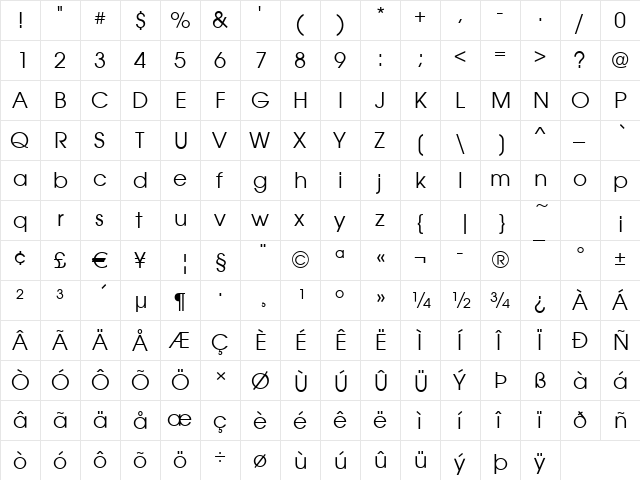
Avignon Regular
Design Context for Avignon Typeface
Avignon takes a measured approach to typography — its balanced proportions and neutral character make it a reliable workhorse for both digital and print work.